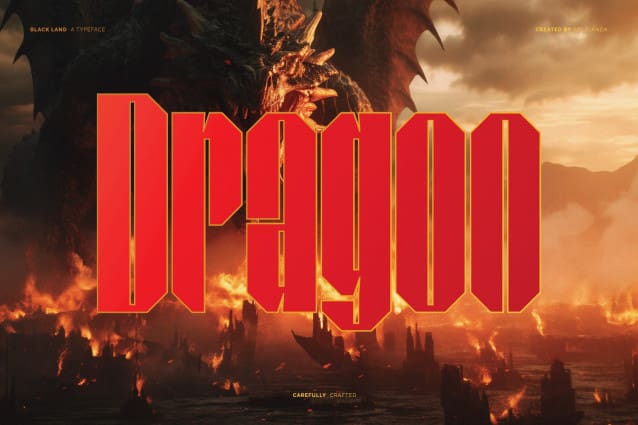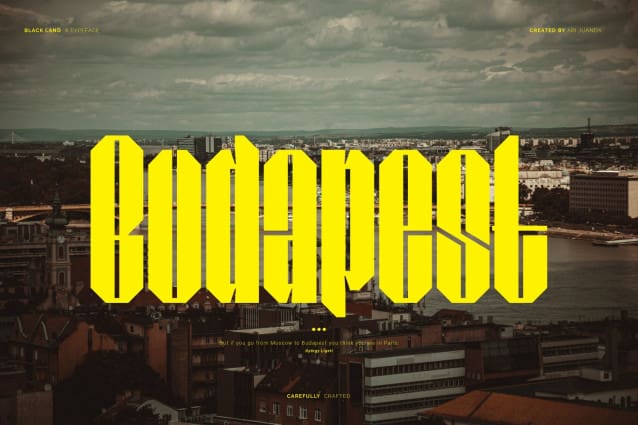
Black Land Font
Black Land Font is a Condensed font with a Blackletter look, Perfect for gothic-style works, Inspired by traditional black/gothic letters, It has clean and sharp lines that are more readable by synthesizing old and new. Perfect for: Bands, Music, Apparel, Branding, Logos, T-shirts, Clothing, etc.